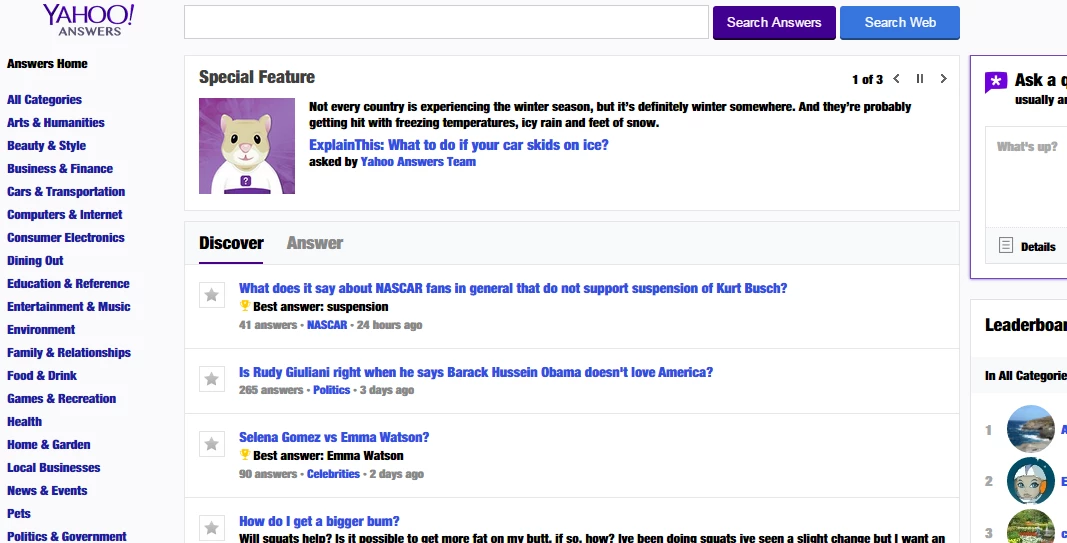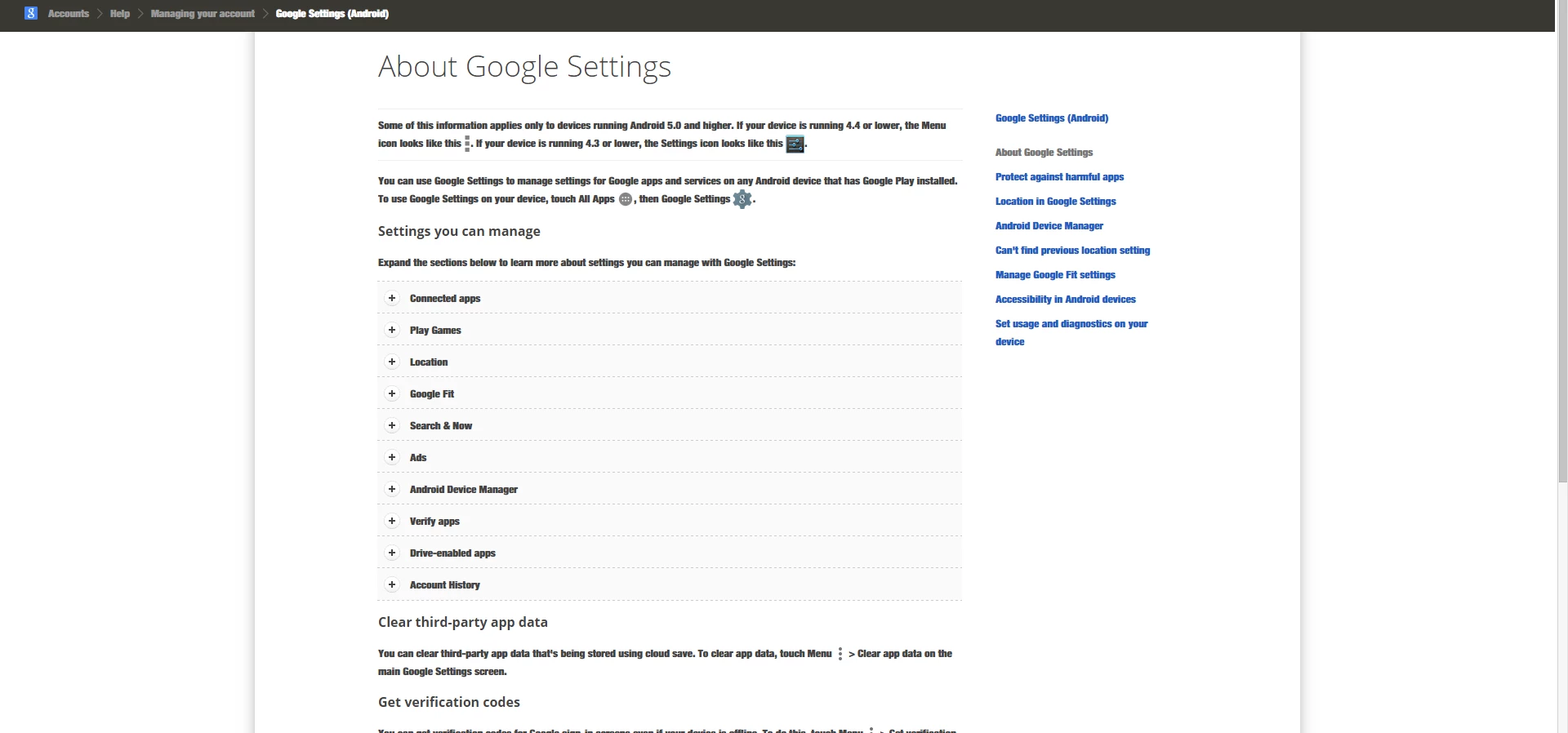
After installing Helvetica Neue font onto my PC (Win7) it now appears almost everywhere online in the interface of websites?
I installed Helvetica Neue recently onto my PC and ever since that font is being used on most websites I visit, and even in the google website's troubleshooting settings. Ive also noticed the font used for the number of likes on a likebox on my website has changed and is all being displayed in Helvetica. It is very annoying and I have no idea how to resolve this issue. Here are a few examples:
Unless a web page uses a “web font” that it supplies itself, web pages typically provide a list of fonts, in priority order, of fonts to be used to render text. Typically, this list of fonts represents “system fonts” of MacOS, Windows, iOS, and Android - fonts that can be counted on being installed. Helvetica Neue is a MacOS system font that is not typically found on Windows systems. And even if a user licenses recent versions of Helvetica Neue OpenType fonts and installs same on Windows systems, they are in the “Helvetica Neue Std” family which would not match “Helvetica Neue” which is native to MacOS. Thus, I suspect that the Helvetica Neue you have installed on Windows is an older font offering.
There are three issues here:
The first is that web pages provide a priority list for font usage. I suspect that the web pages you are seeing Helvetica Neue actually used on your system are requesting fonts in the order of Helvetica Neue and then Arial. The typical MacOS system would display the content with Helvetica Neue and the typical Windows system would display the content with Arial. Since you have Helvetica Neue on your system, you are getting rendering similar to what a MacOS system would have.
The second issue is that there is no way to force a web page to reverse the order of priority of the fonts it lists.
And finally, the third issue is that there is no way to hide a font selectively by application.
The only way you can avoid Helvetica Neue being used on web pages preferring Helvetica Neue to let's say Arial or any other font on its list for particular text rendering is to uninstall Helvetica Neue.
That having been said, other than perhaps personal type design preferences, are there any other issues with regards to use of Helvetica Neue for display of these web pages?
The main reason i cant accept this font being used on some webpages is that it appears very bold and it hurts my eyes when I try to read it.
I am a graphic designer so I think uninstalling the font maybe not the best solution for me however I am aware that there are different versions of Helvetica so I might try downloading a different version of the font.